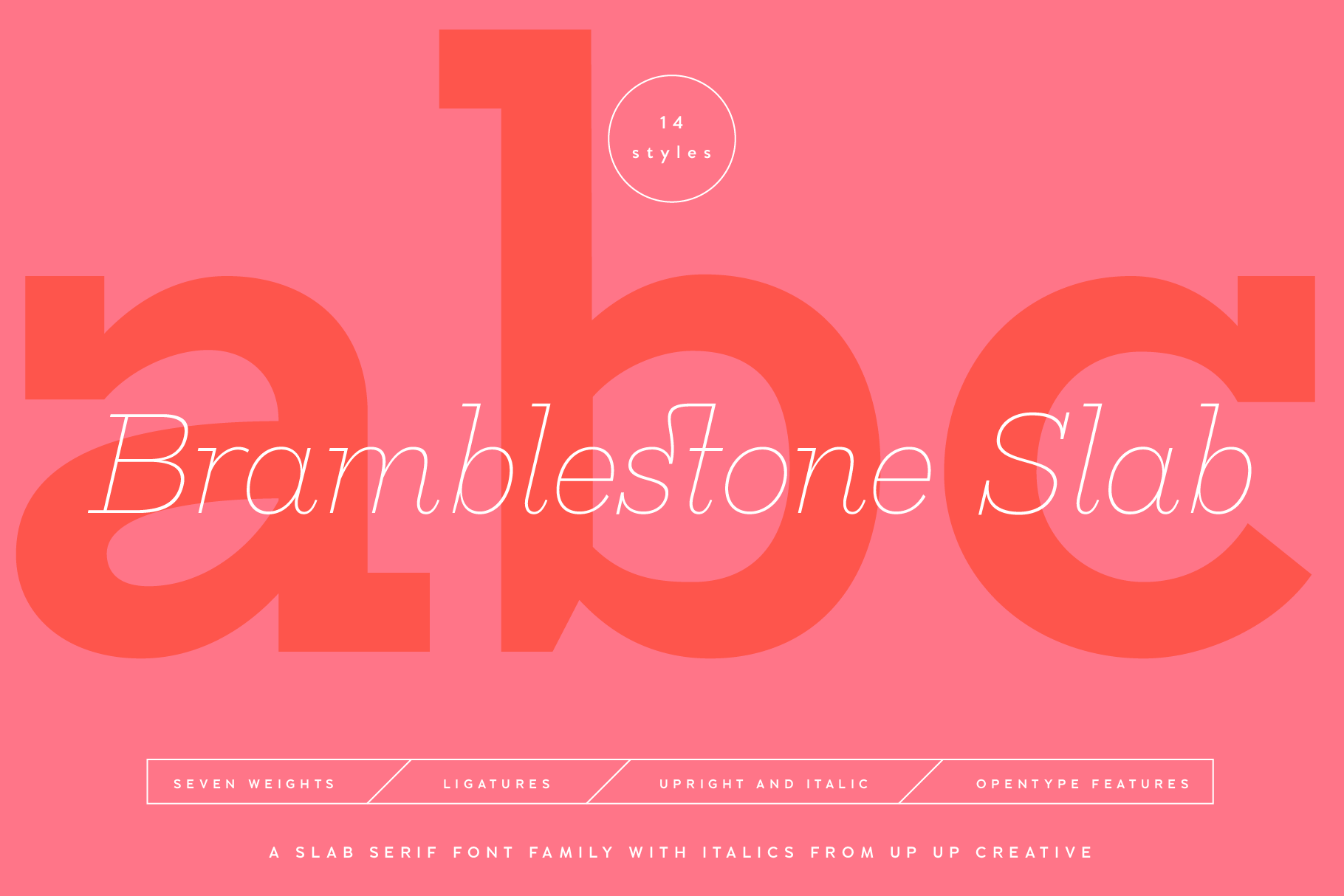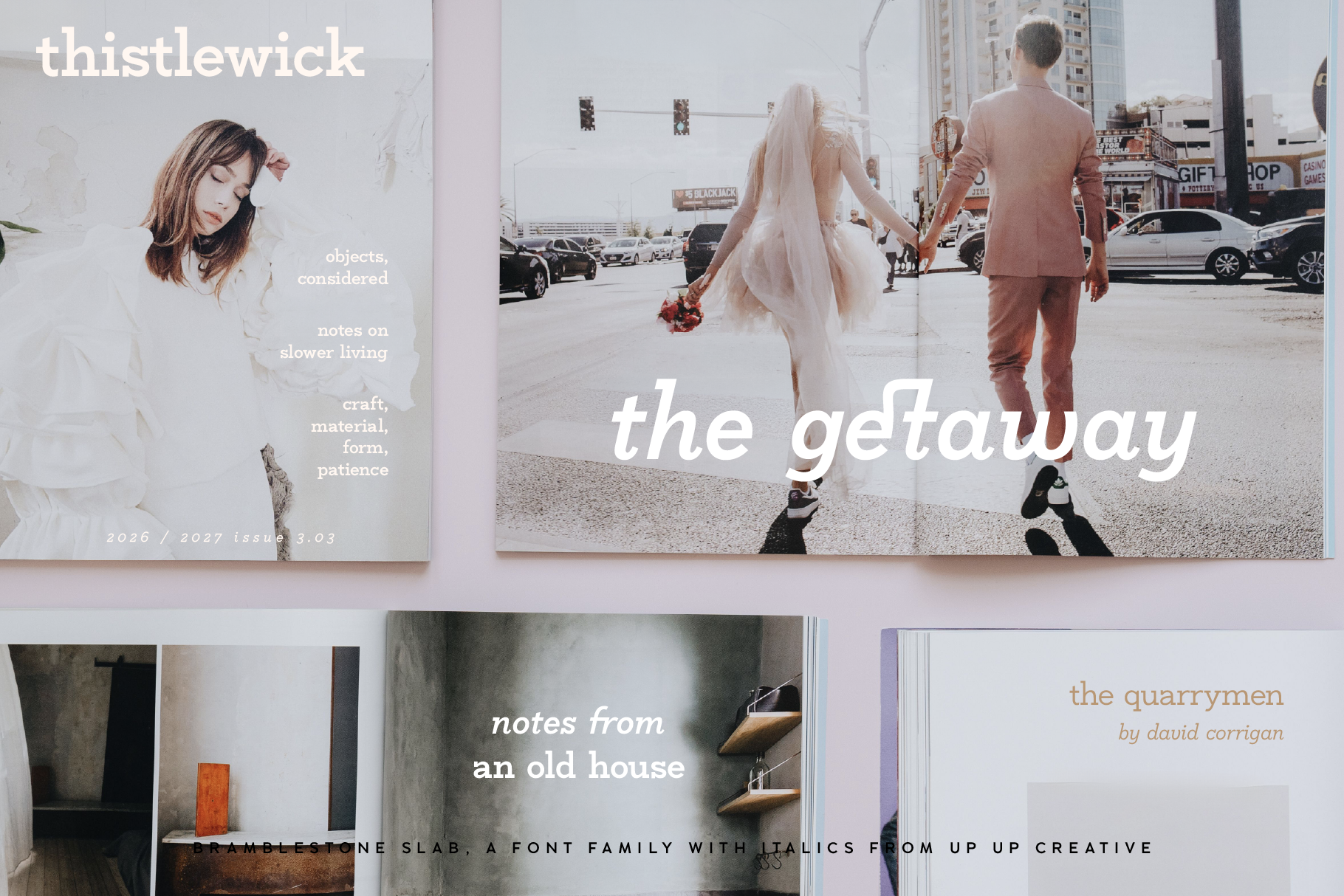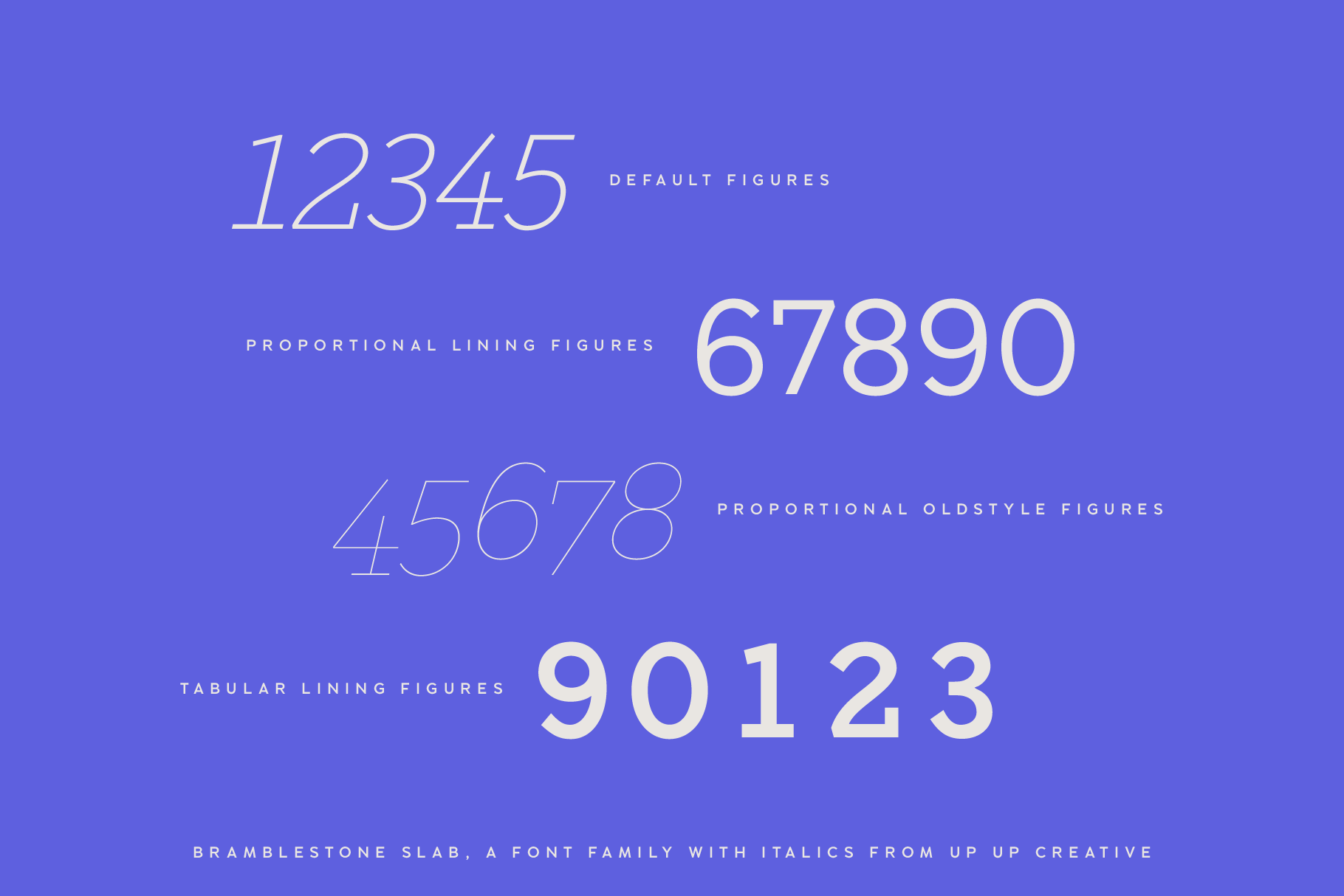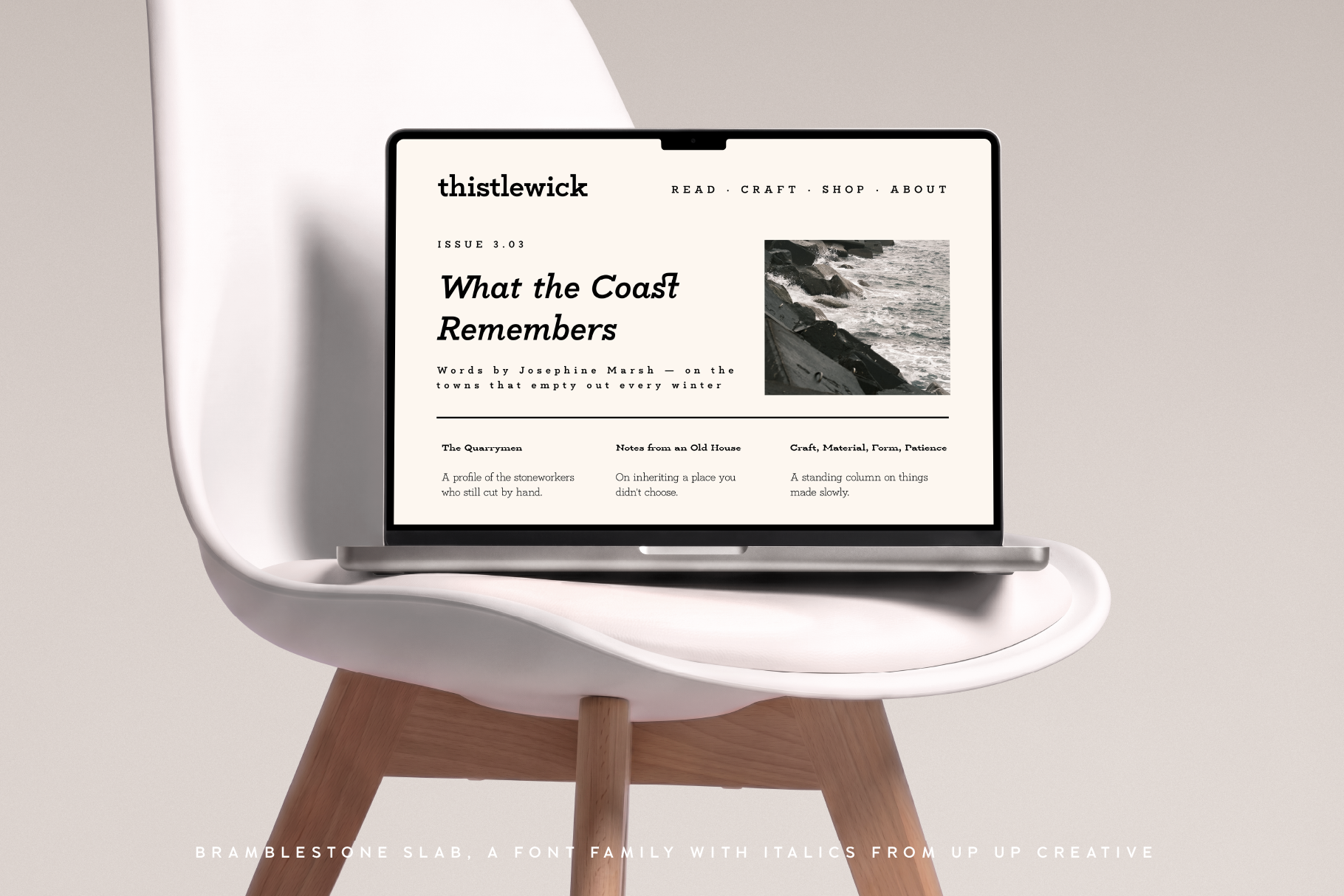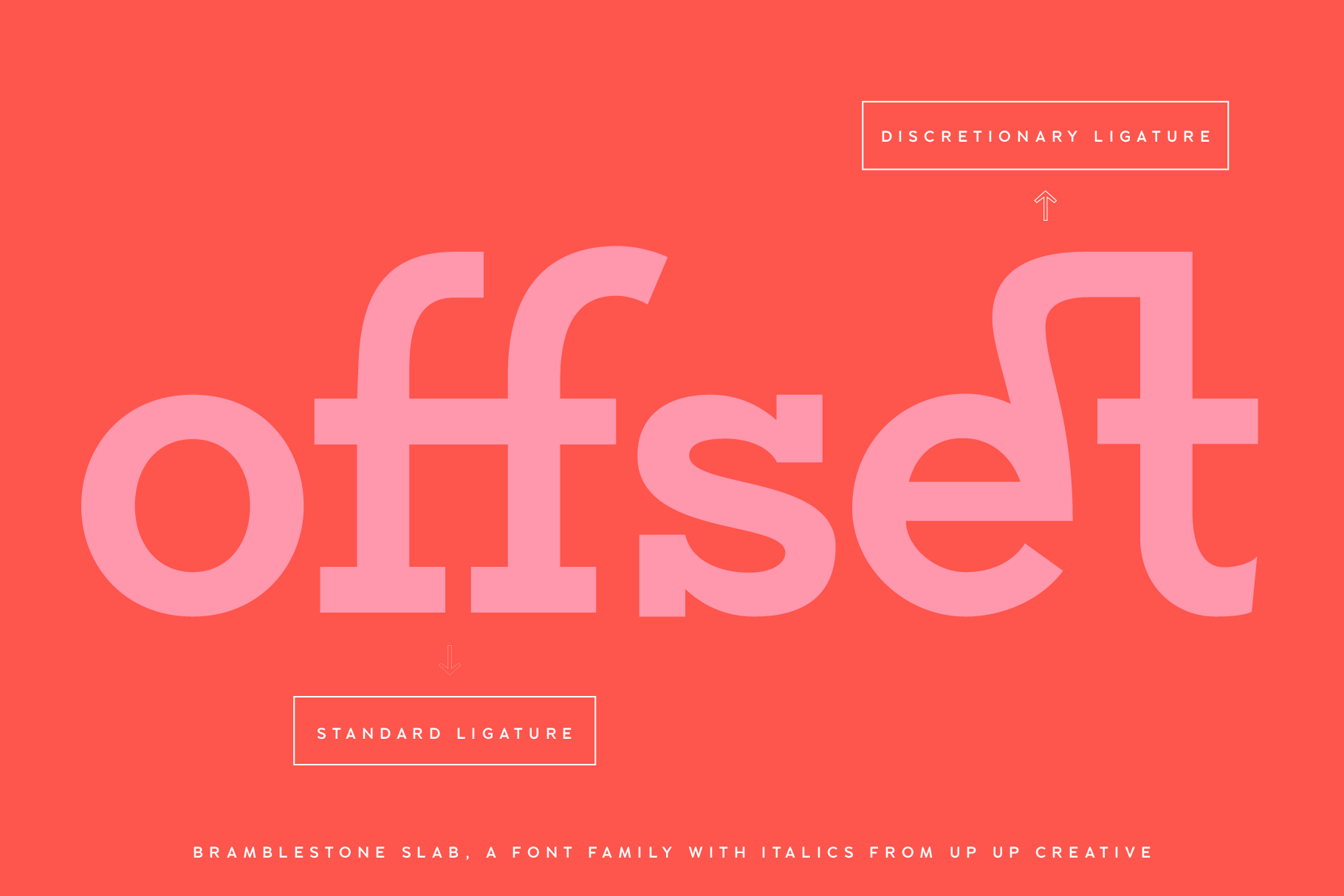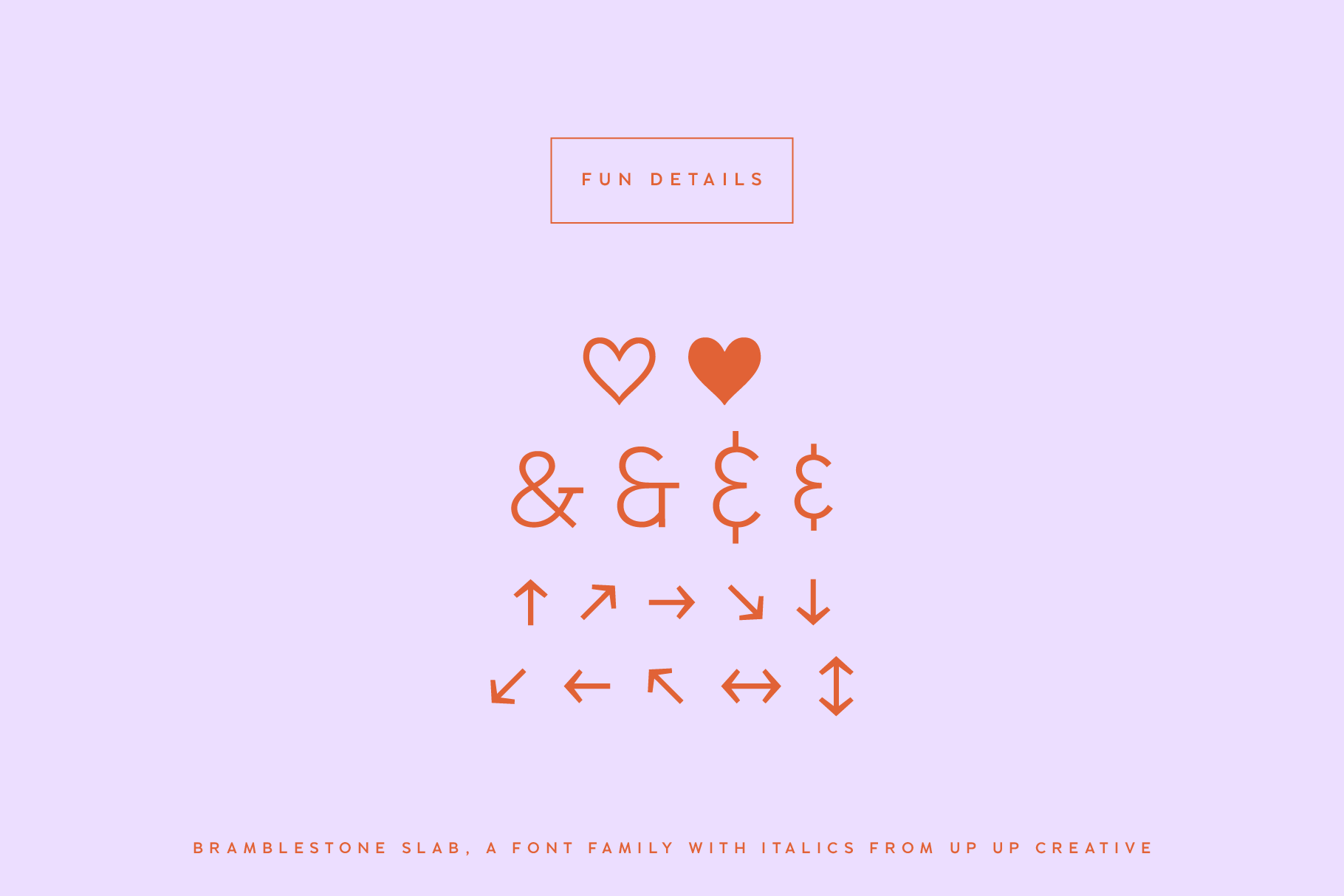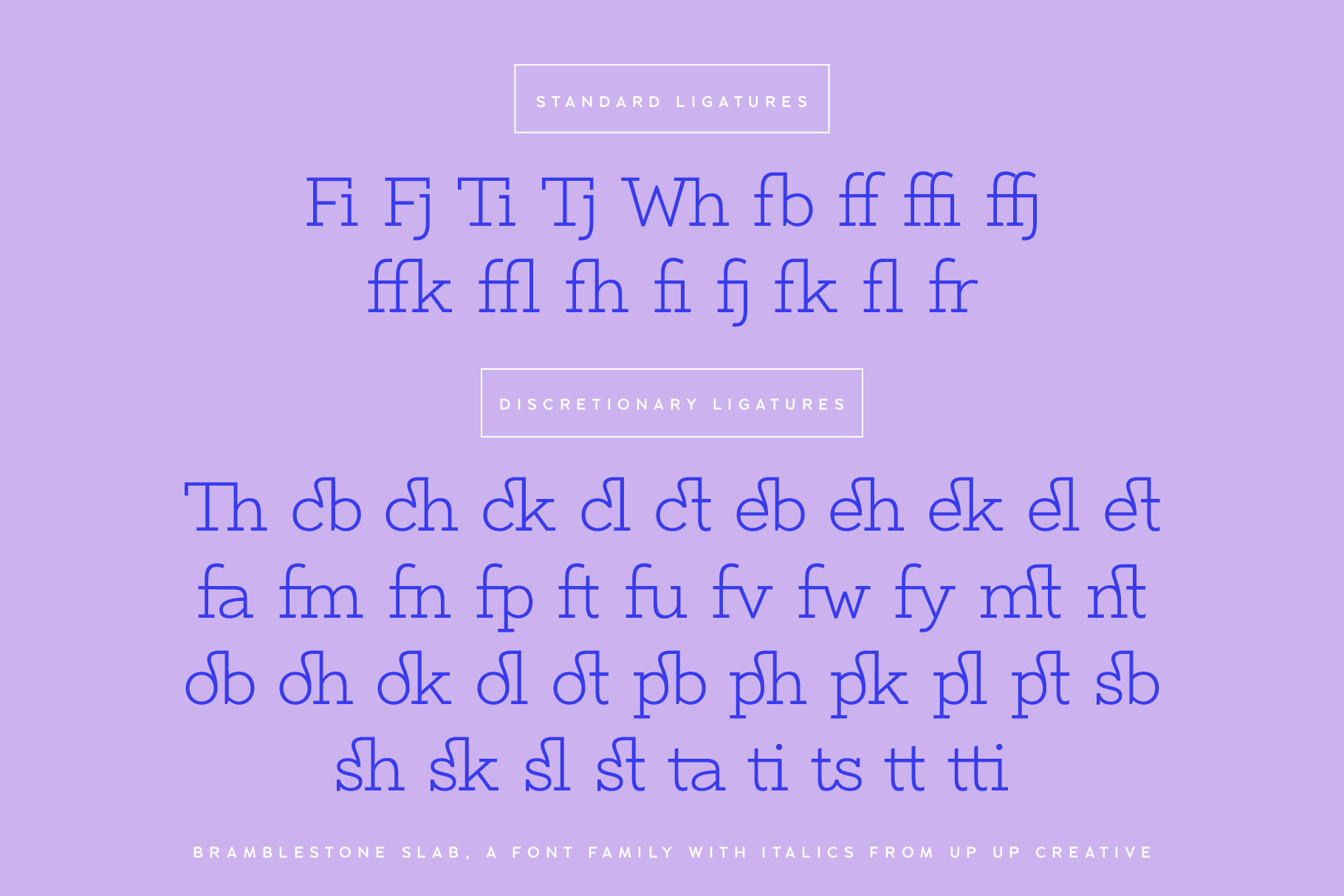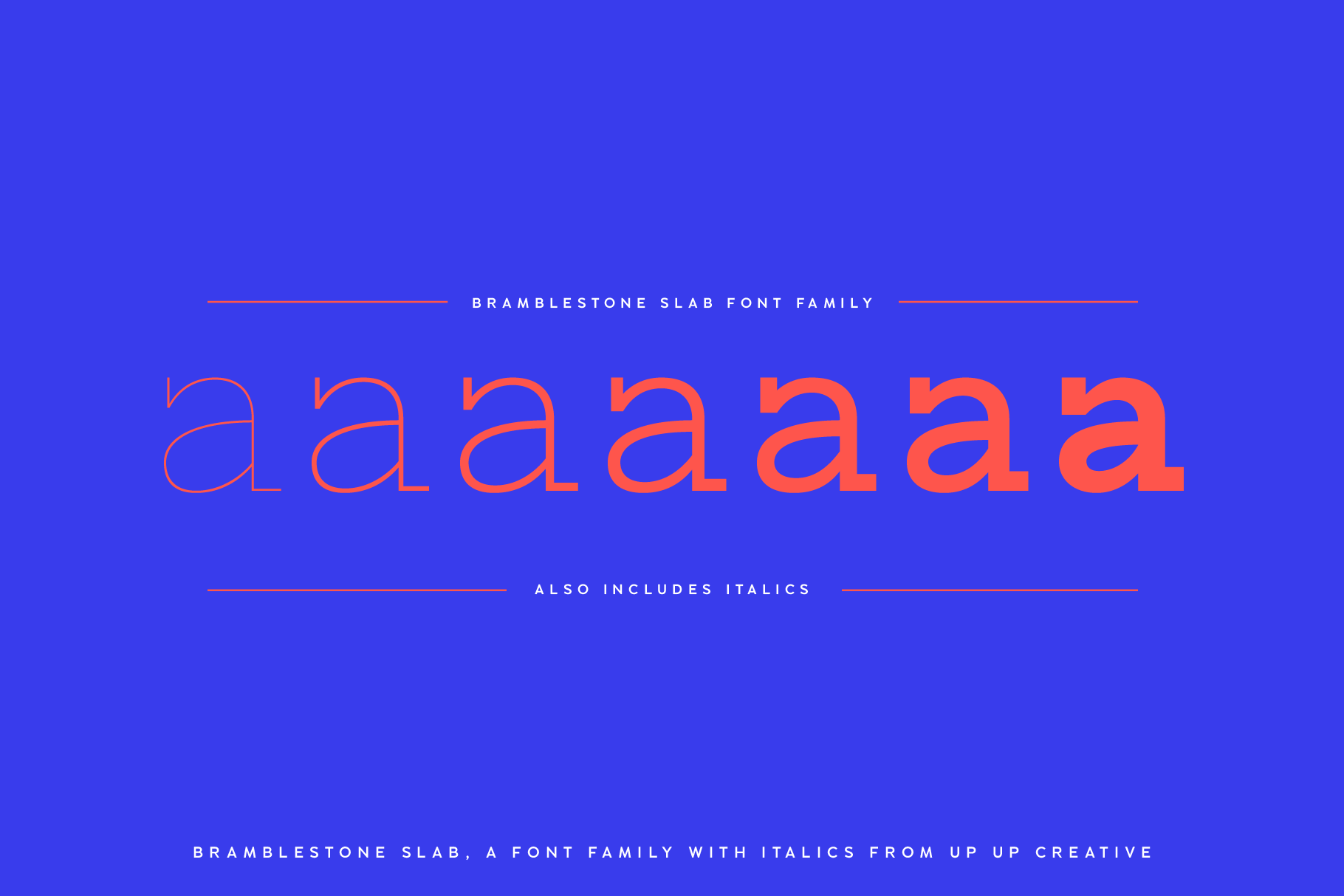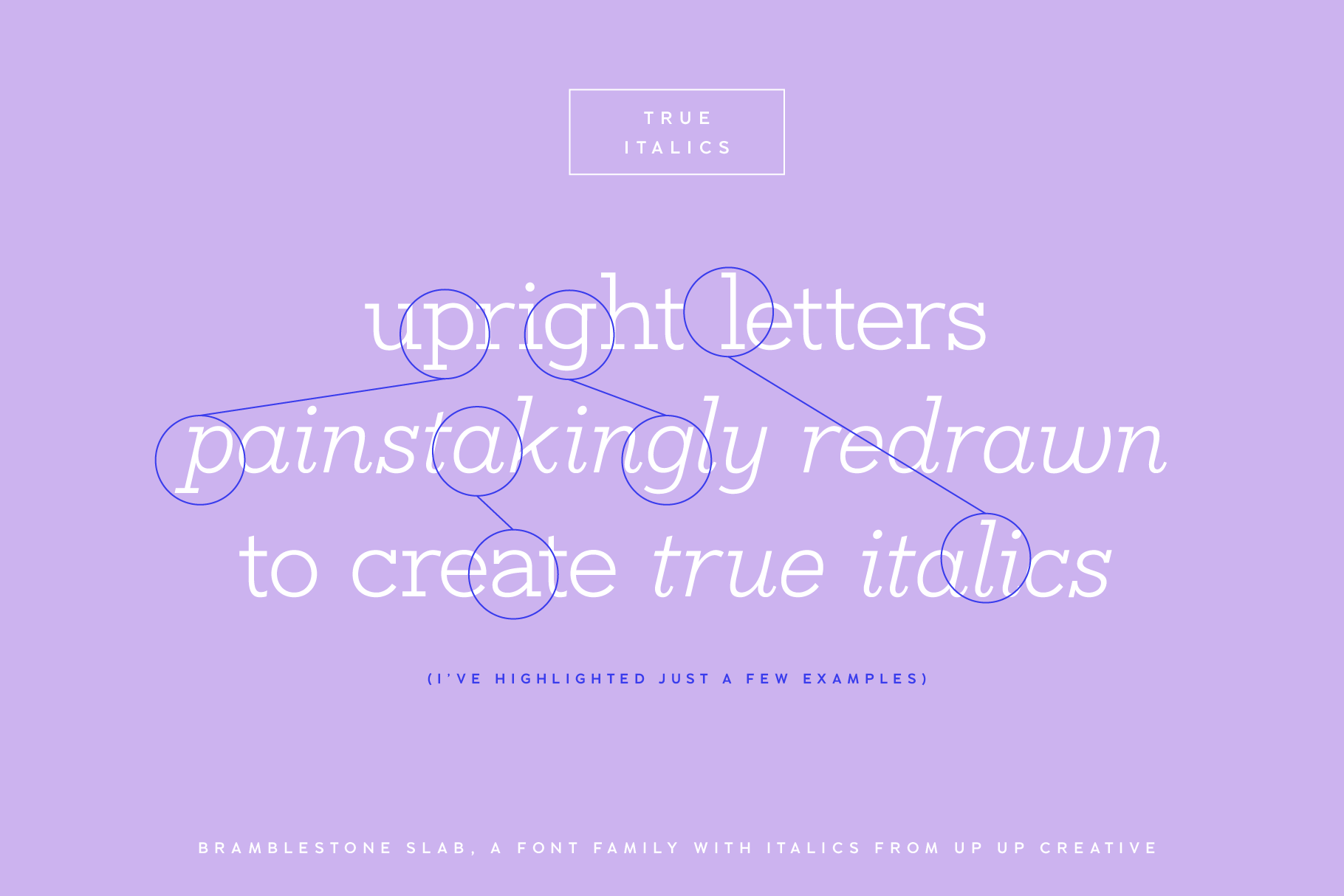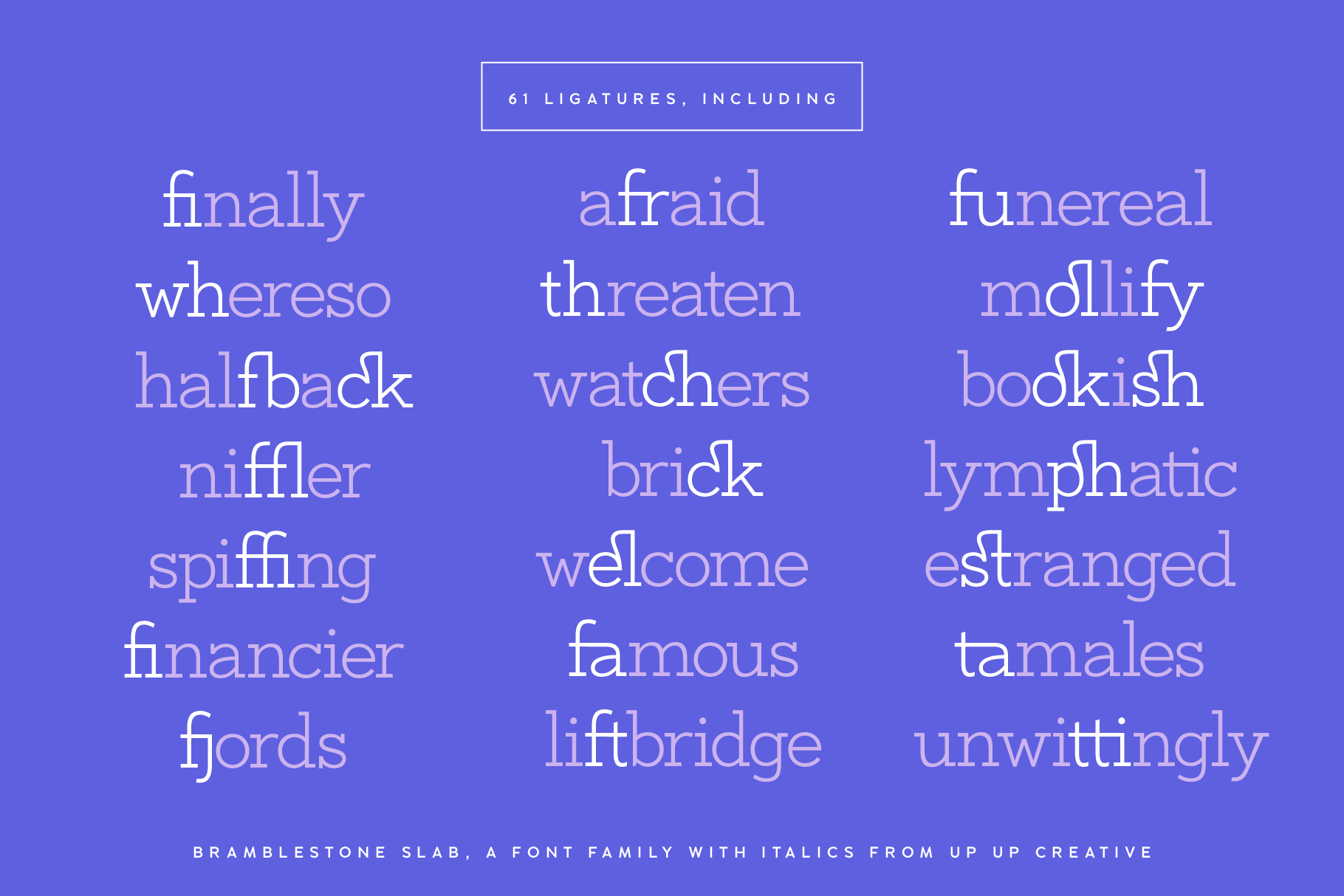
Bramblestone Slab Serif Font Family
Bramblestone Slab is a slab serif built for range, moving from a barely-there hairline to a heavy bold across seven weights, each with a true italic redrawn from the ground up rather than merely slanted. It reads as refined at small sizes and holds its own as a headline, equally suited to a magazine masthead, a product label, or a wedding invitation.
With 506 glyphs, the family includes 90 ligatures across standard and discretionary sets, proportional and tabular figures alongside oldstyle numerals, and support for 209 languages. A set of dingbats -- hearts, ampersands, directional arrows -- rounds out the details for anyone building a full brand system rather than a single headline.
Whether the project calls for something delicate and editorial or bold enough to anchor packaging, Bramblestone Slab adjusts without losing its character.
Bramblestone Slab includes the following OpenType features:
- character variants
- discretionary ligatures
- fractions, ordinals, and superscripts
- localized forms (multi-language and multi-currency support)
- numerals (lining, proportional, tabular, oldstyle)
- standard ligatures
Includes 57 ligatures
- Includes 506 glyphs
- 7 Weights, each in Upright and Italic